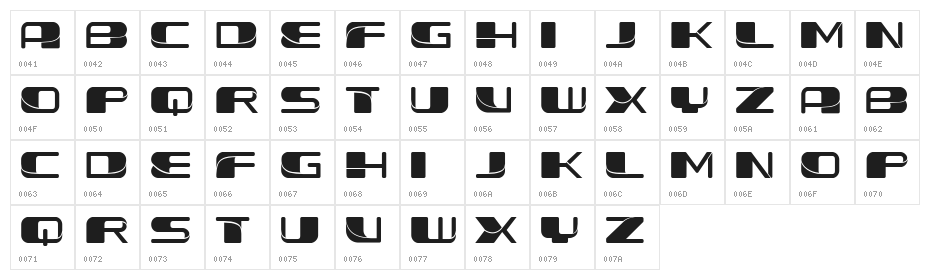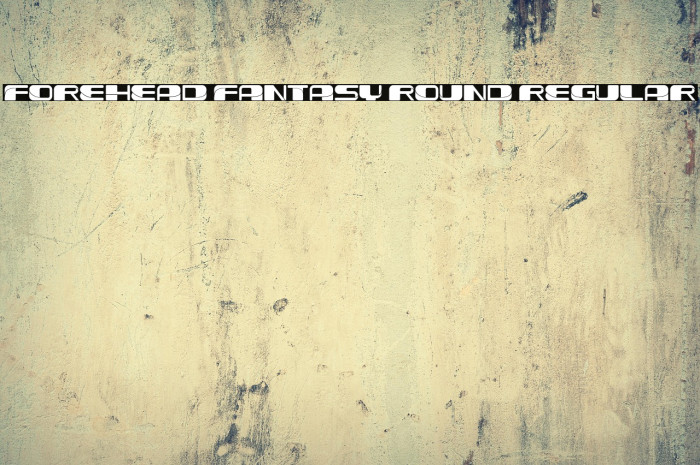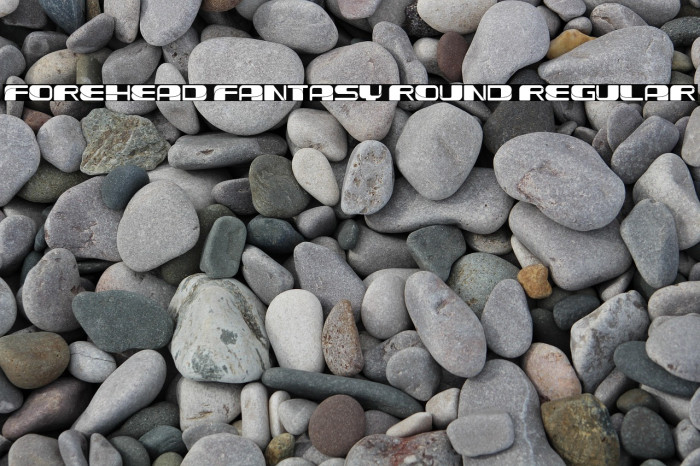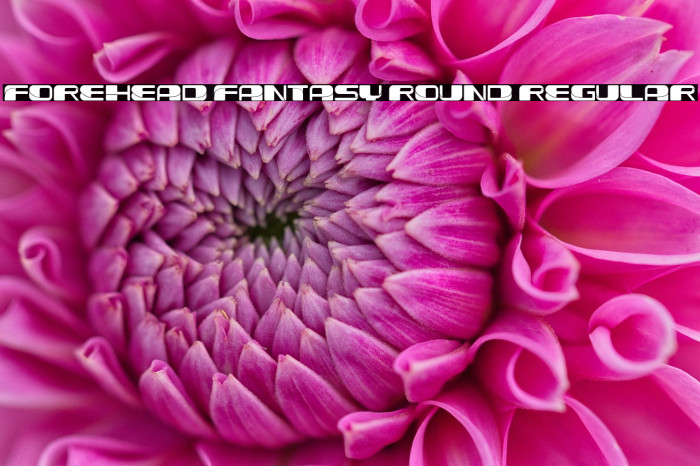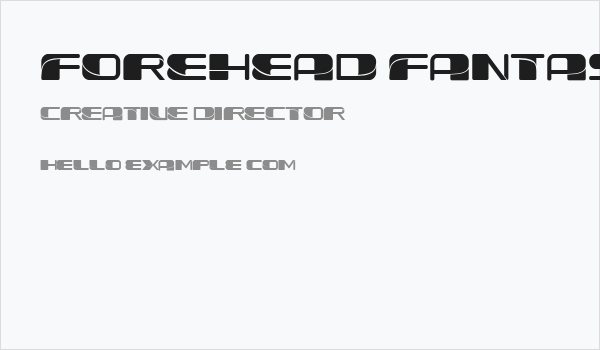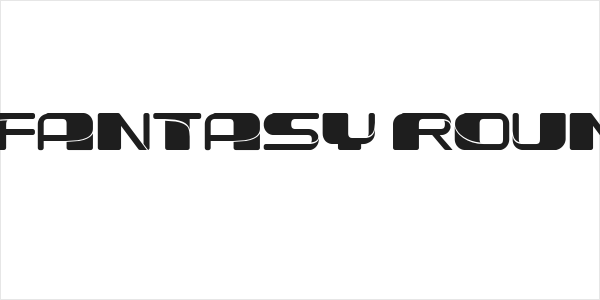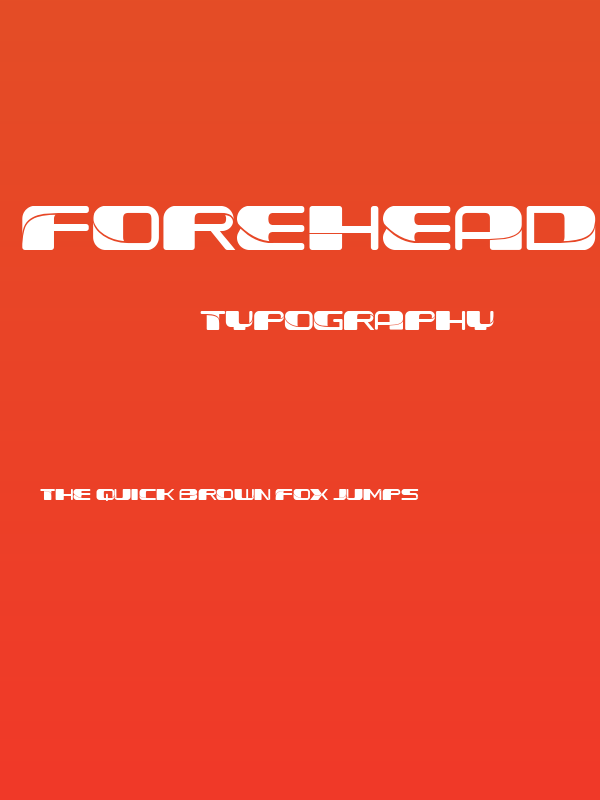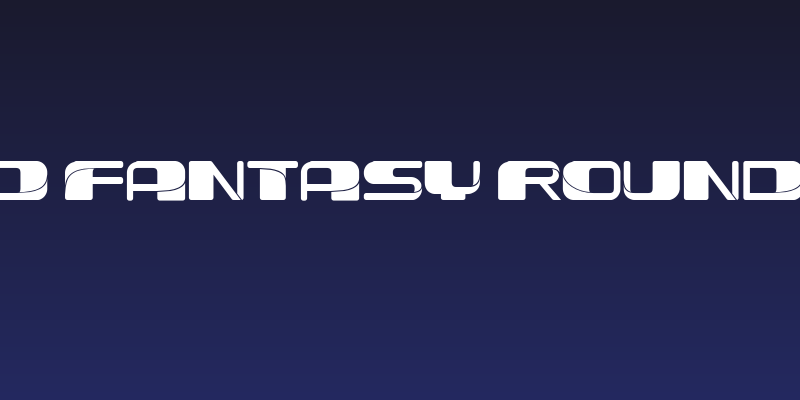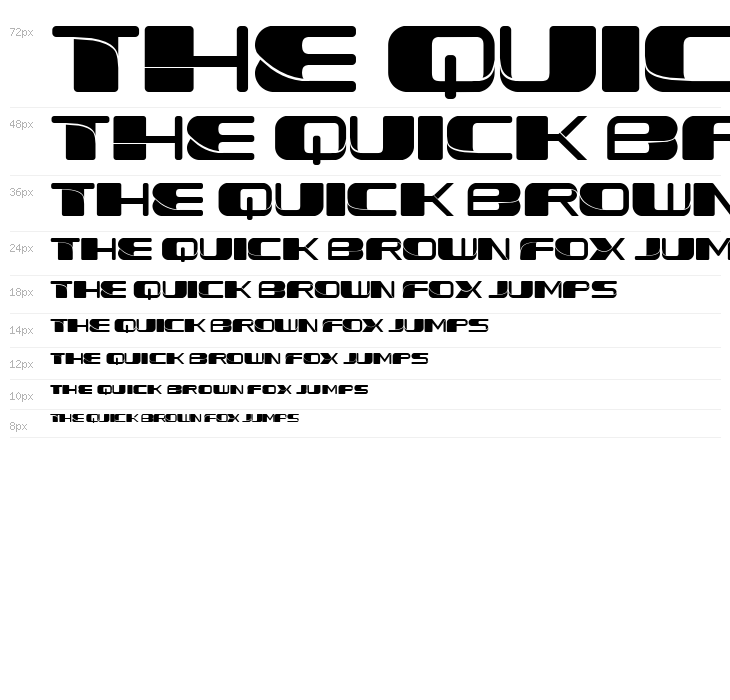
Forehead Fantasy Round Regular Font
Forehead Fantasy Round Regular Description
This font features a futuristic and bold design with rounded edges and a geometric structure. The characters are wide and have a distinct, modern appearance, making them stand out with their unique style. The strokes are consistent in width, providing a uniform look across all characters. The font's design is sleek and contemporary, with a slight sci-fi influence, making it ideal for creative and innovative projects. The rounded elements add a touch of softness to the otherwise strong and assertive character shapes.
| Proposed Projects | Ideal for sci-fi themed projects, technology branding, modern posters, and video game titles. |